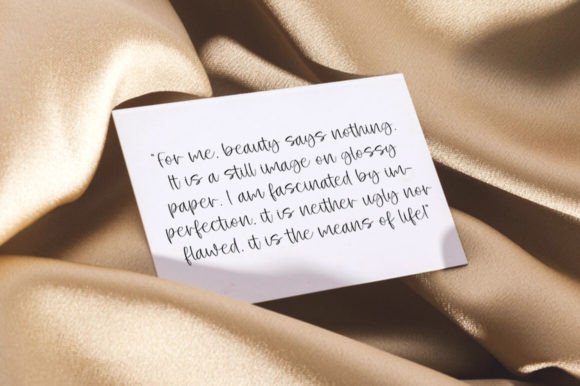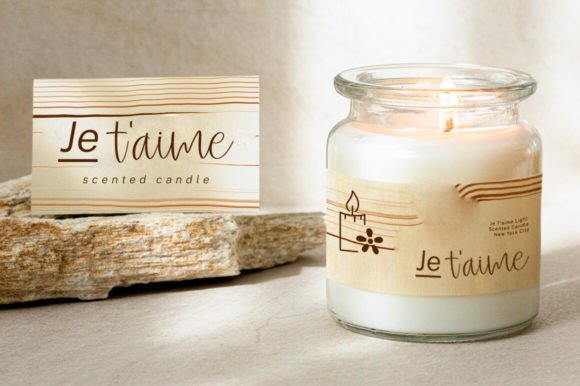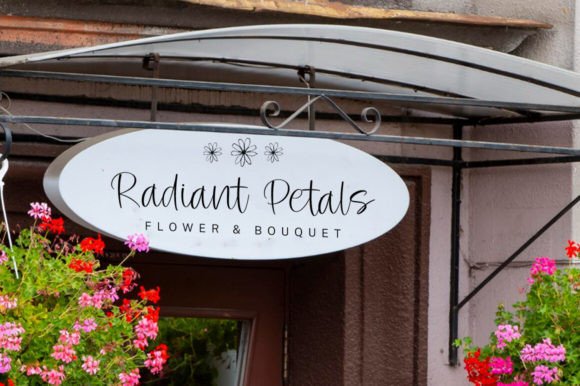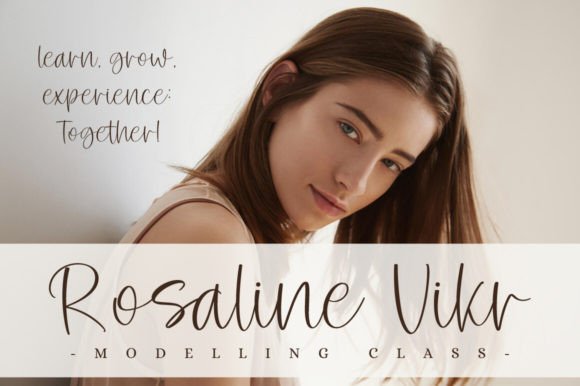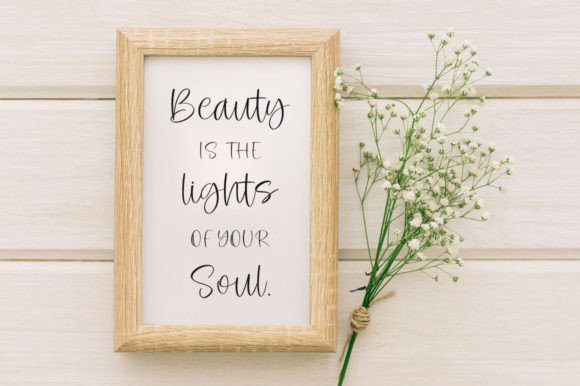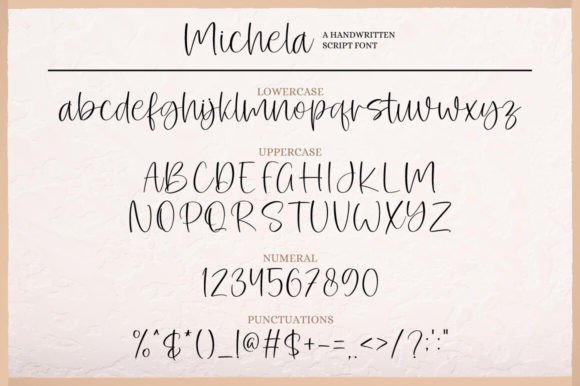
Introduction to Michela Font
Michela is a beautiful, well-balanced, and graceful script font.
Michela is a beautiful, well-balanced, and graceful script font. It is defined by smooth curves and is perfect for fashion branding or editorial designs
Key Features of Michela Font